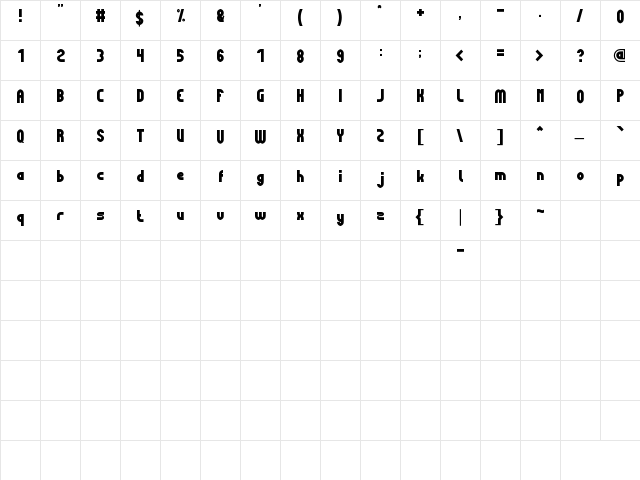
picture of you Regular
Design Context for picture of you Typeface
picture of you takes a measured approach to typography — its balanced proportions and neutral character make it a reliable workhorse for both digital and print work.